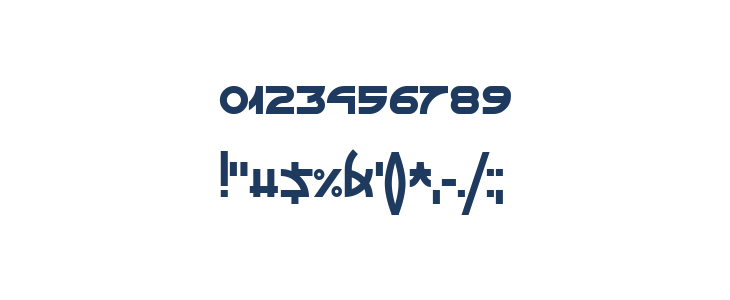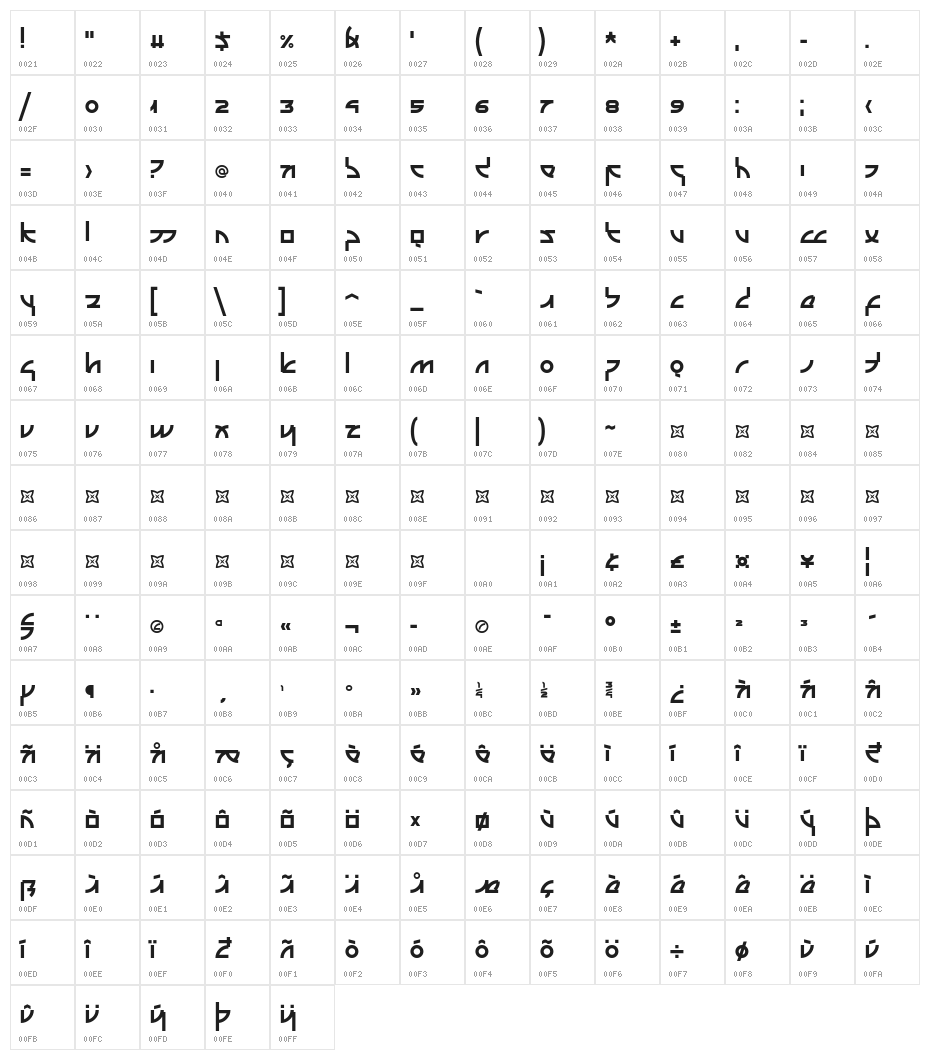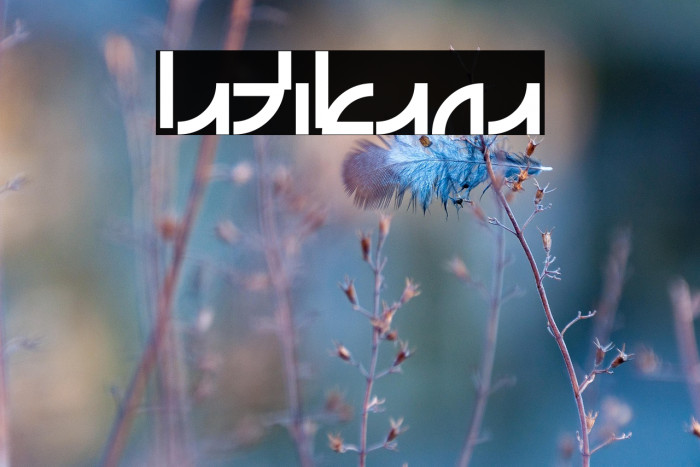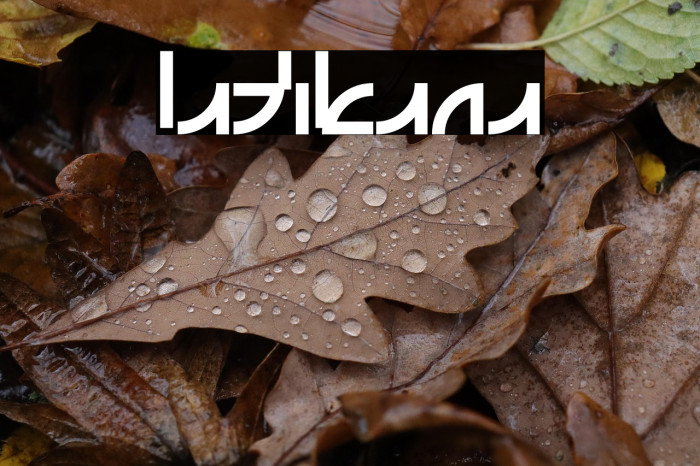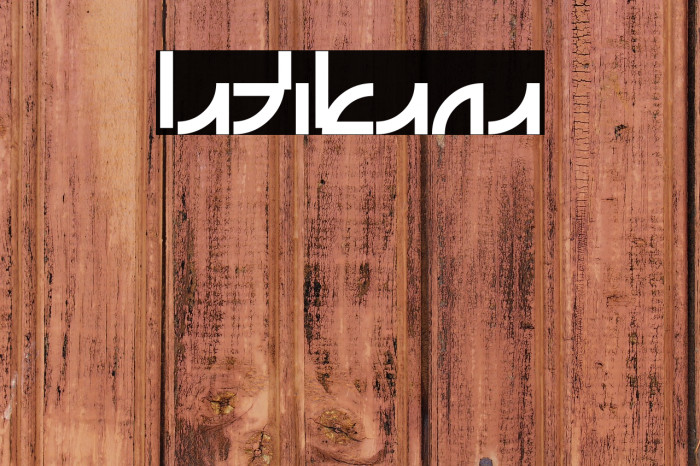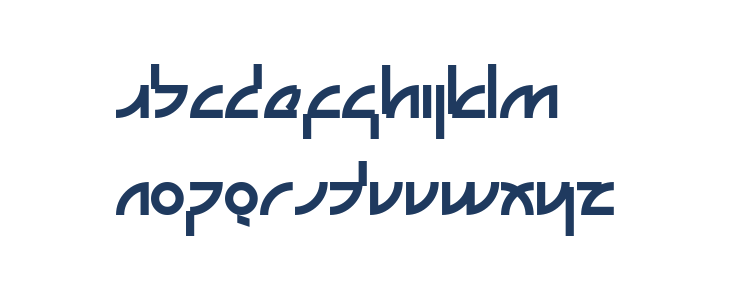
Latikana Font
Latikana Description
This font features a futuristic and geometric design, characterized by its sharp angles and clean lines. The uppercase and lowercase letters share a consistent style, with a unique approach to curves and edges that gives it a distinct, modern appearance. The numerals and special characters maintain this aesthetic, ensuring a cohesive look across all glyphs. Its bold presence and striking design make it ideal for attention-grabbing headlines or logos. The font's structure is both artistic and functional, offering a balance between readability and style.
| Proposed Projects | Ideal for sci-fi themed projects, modern branding, tech-related designs, and innovative product packaging. |